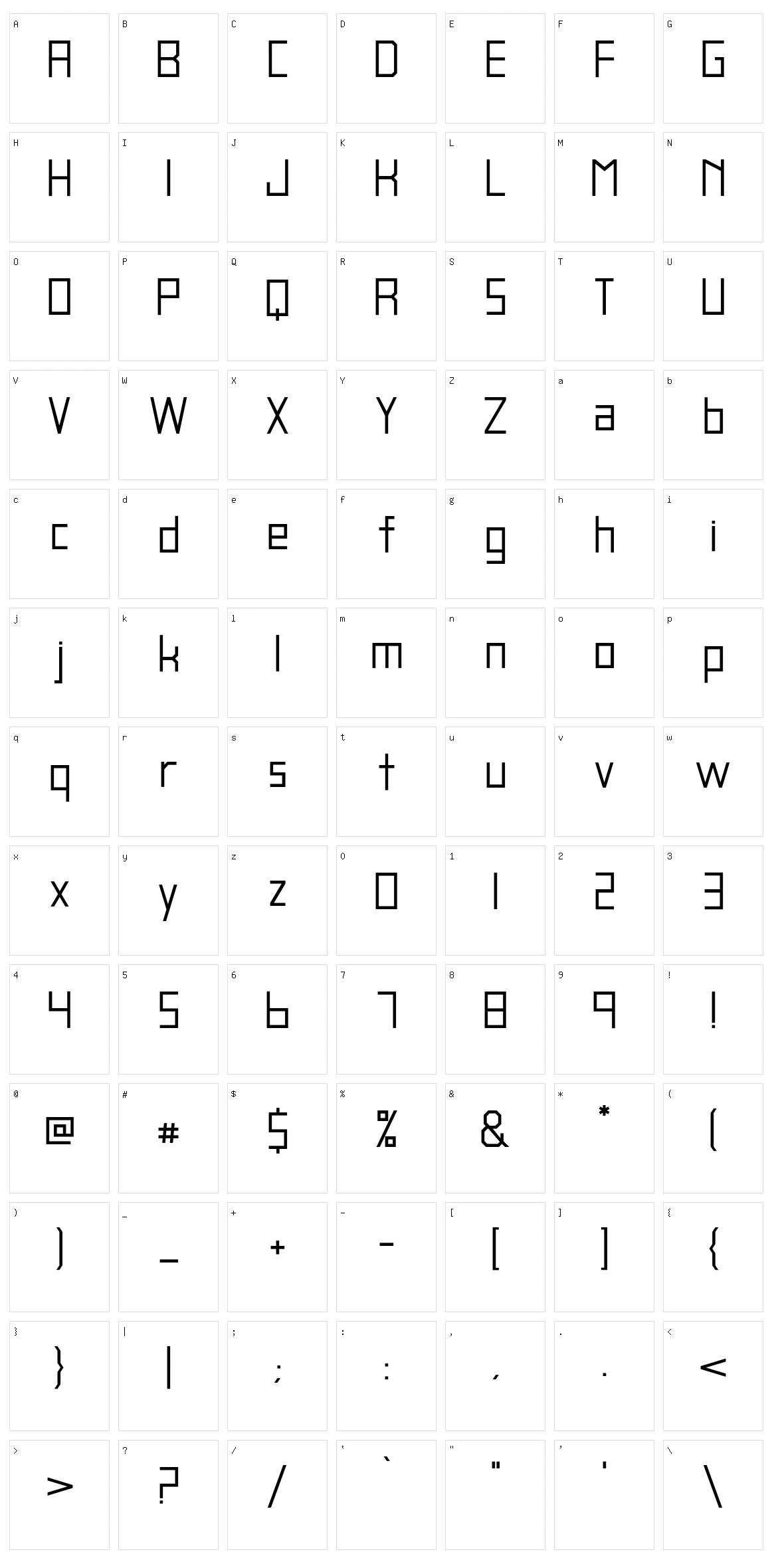
The free font Blank is carefully designed by Mauro Espindola, showcasing a thoughtful balance of creativity and usability and falls under the Square font style. When you download the ZIP file, it contains only 11.87 KB of font files, making it lightweight and quick to download. Please review the license details below to understand permitted usage and distribution rights. If license information is not available, we recommend using this font for personal projects only or contacting the author directly for commercial usage permissions.